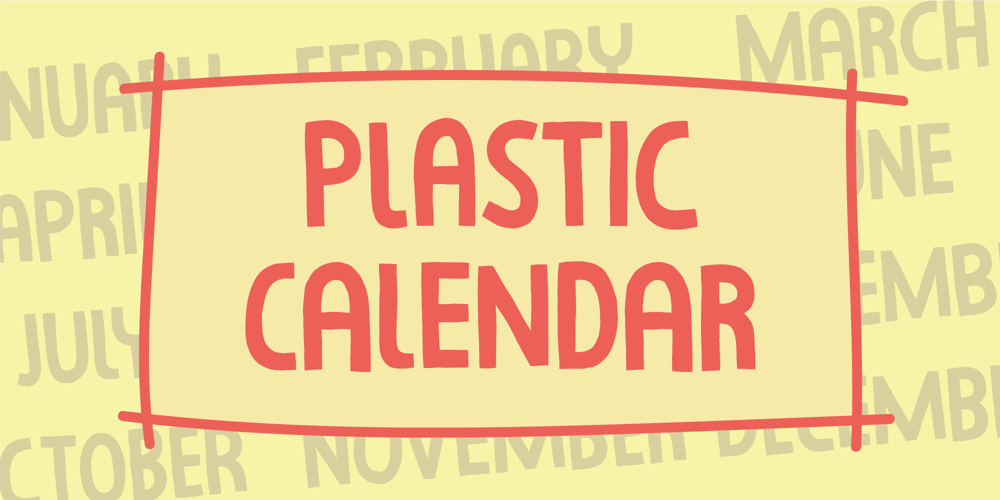
Plastic Calendar
Plastic Calendar font
Plastic Calendar Font Family was designed by Jakob Fischer and published by PizzaDude.dk. Plastic Calendar contains 2 styles and family package options. A client asked me to do a simple handmade all-caps font for her calendar. I thought “why not” and ended up doing this nice handmade all-caps font. The client was happy, and so was I, because it looked really good on her calendars. And that made me wonder if it would look good on other things as well :)Btw, the clients calendars were made of plastic – hence the name 🙂